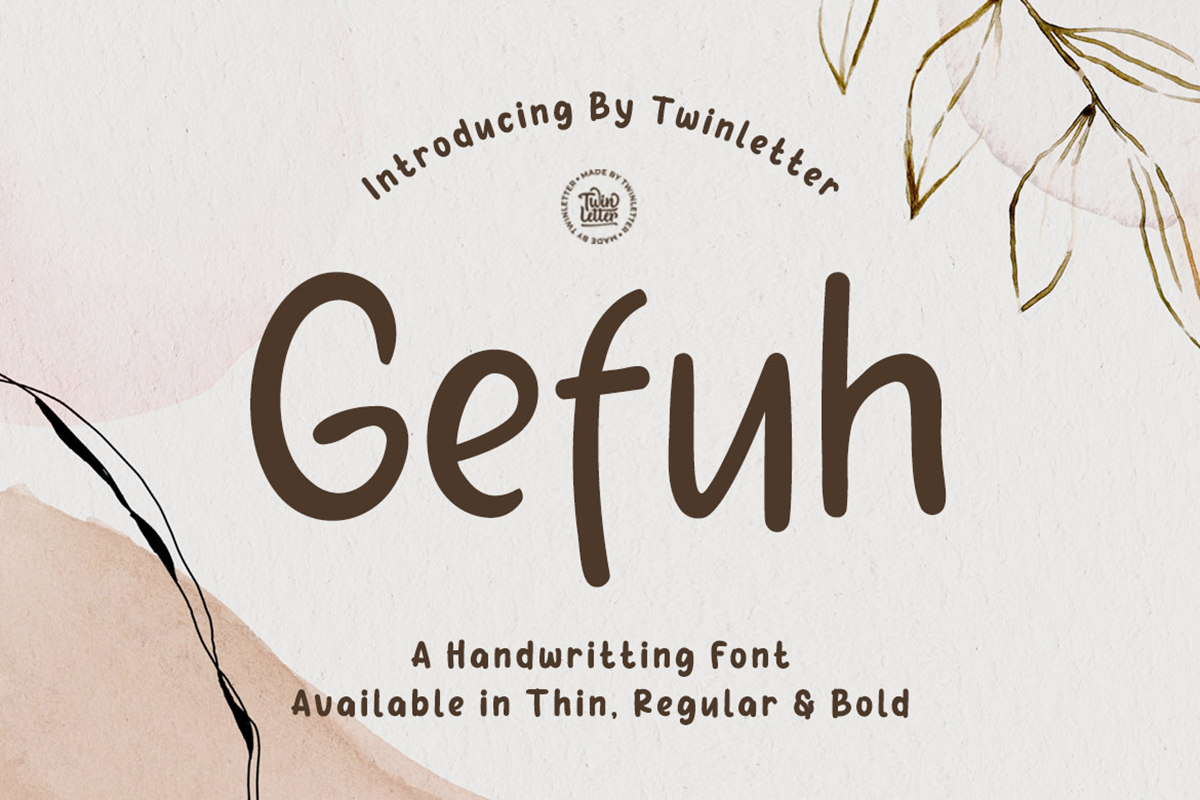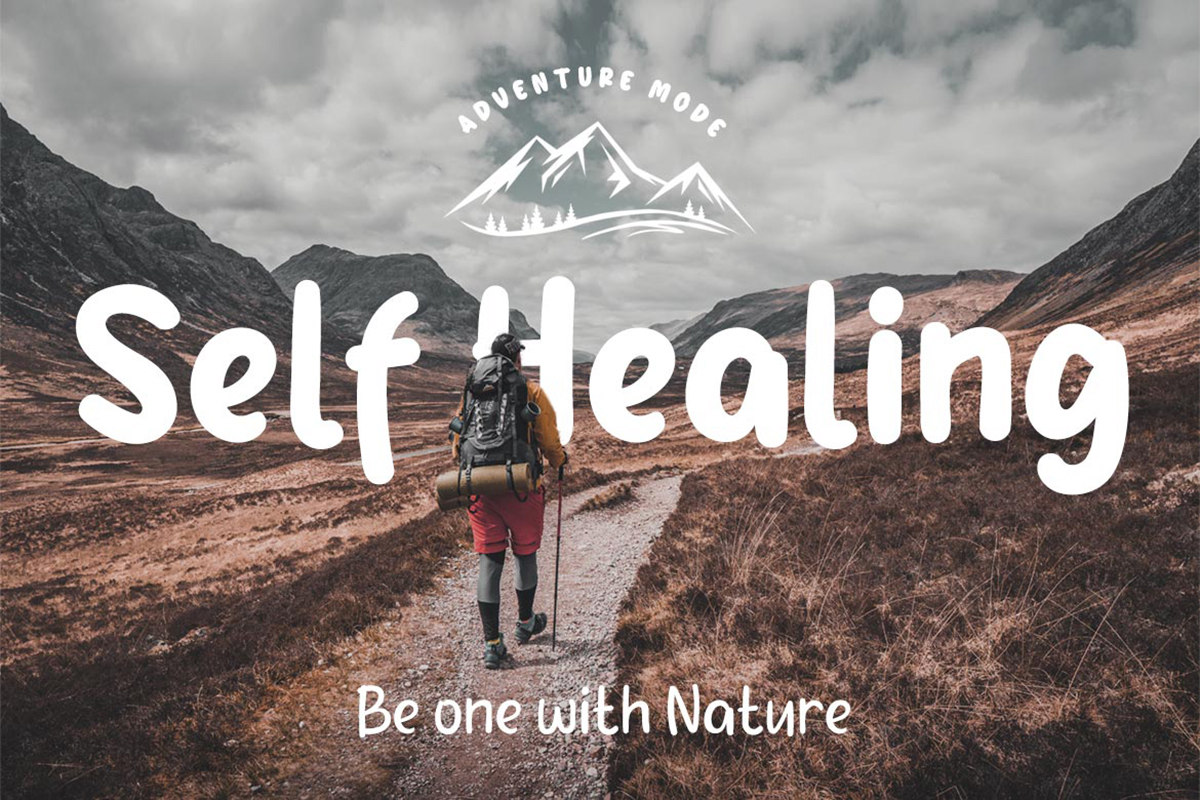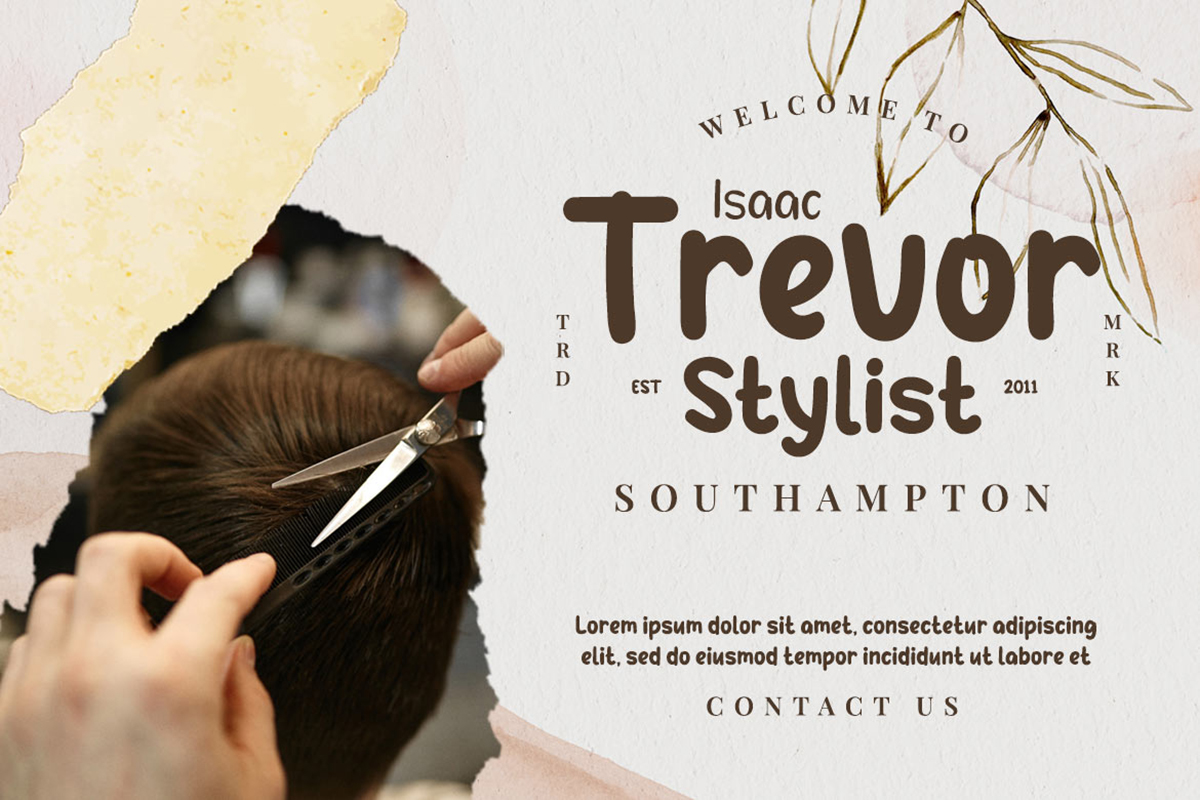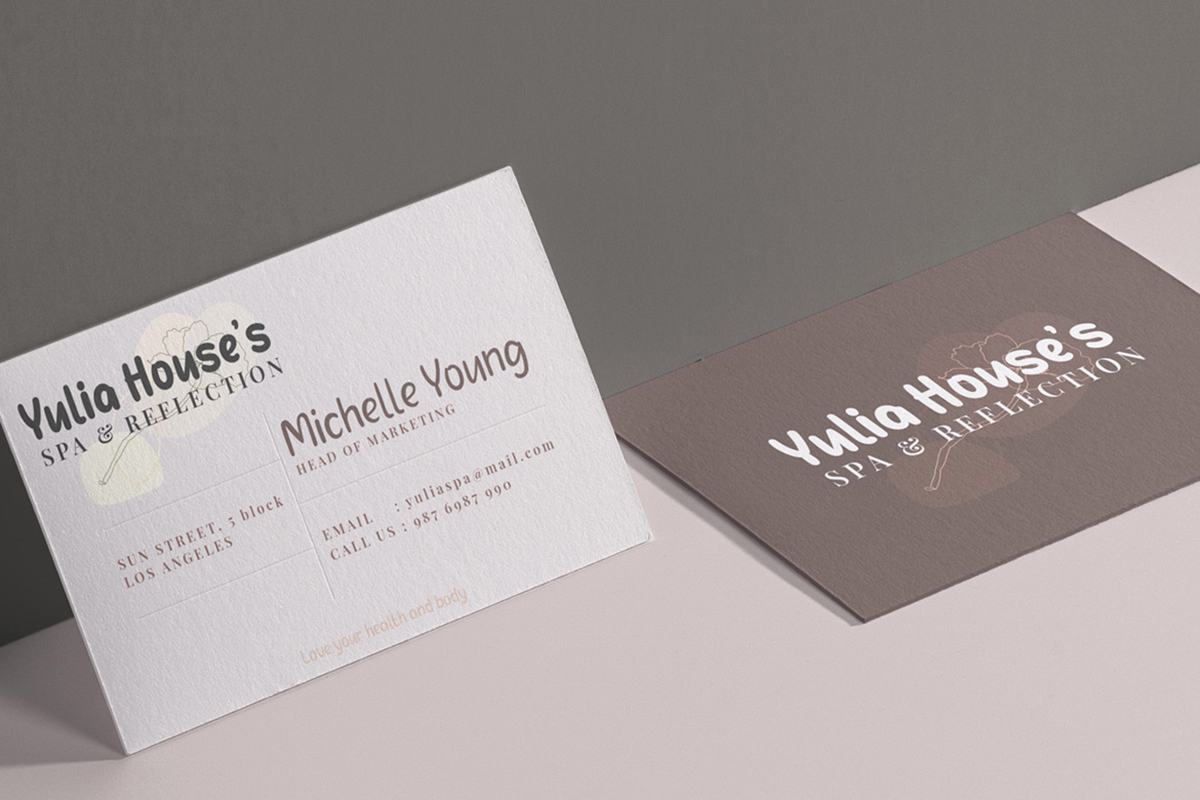
Gefuh Free Font
Introducing Gefuh Free Font – a casual and versatile handwritten font that seamlessly adapts to any context. With its innate charm, this font becomes a valuable asset in your font library, capable of enhancing every creation you embark on, regardless of the topic. Embrace the flexibility of “Gefuh” and elevate your designs to new heights with its delightful touch. This free typeface was designed by a talented Twin Letter. If you like it don’t forget to check out the full version.